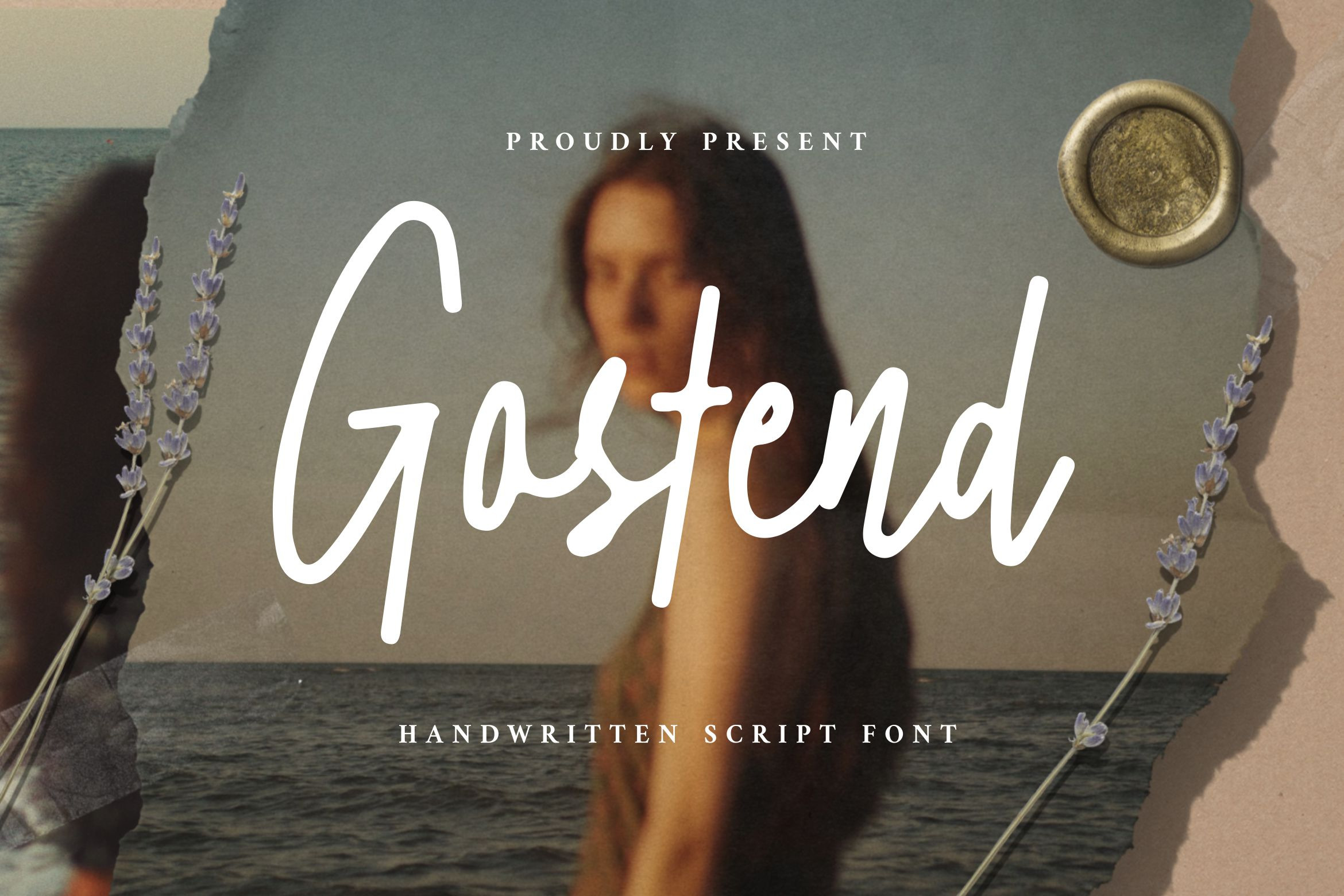
Gostend - Handwritten Script Font
Gostend is a handwritten script font with a natural texture. It has a thin calligraphy look making it perfect for branding and digital designs. Use this font for logos, social media, websites, blogs, instagram, business cards, branding, and more!